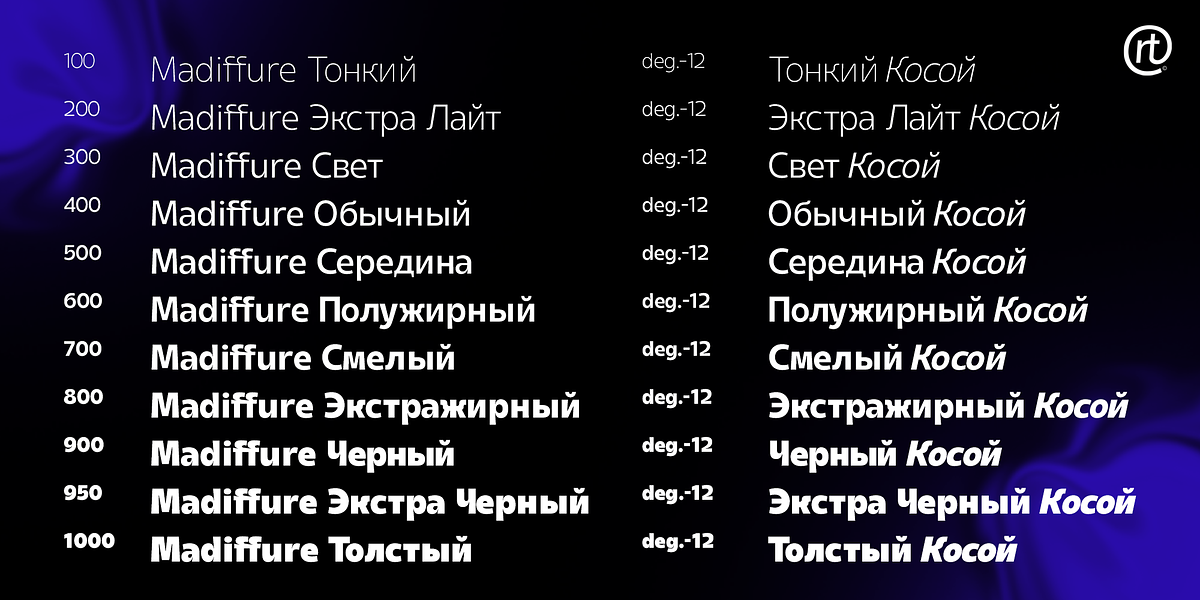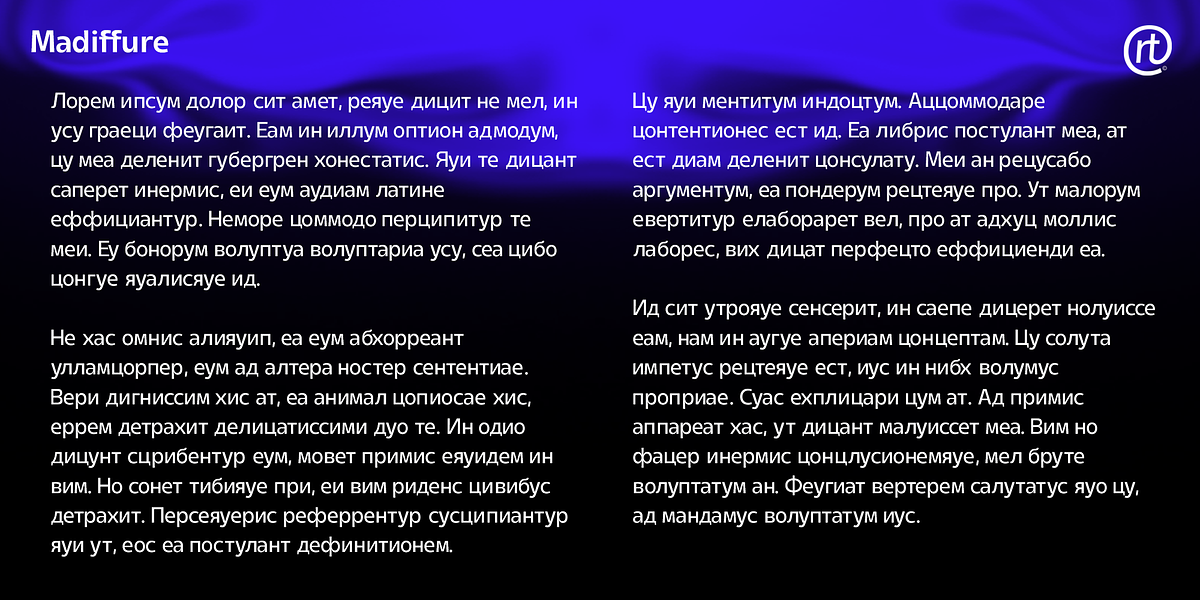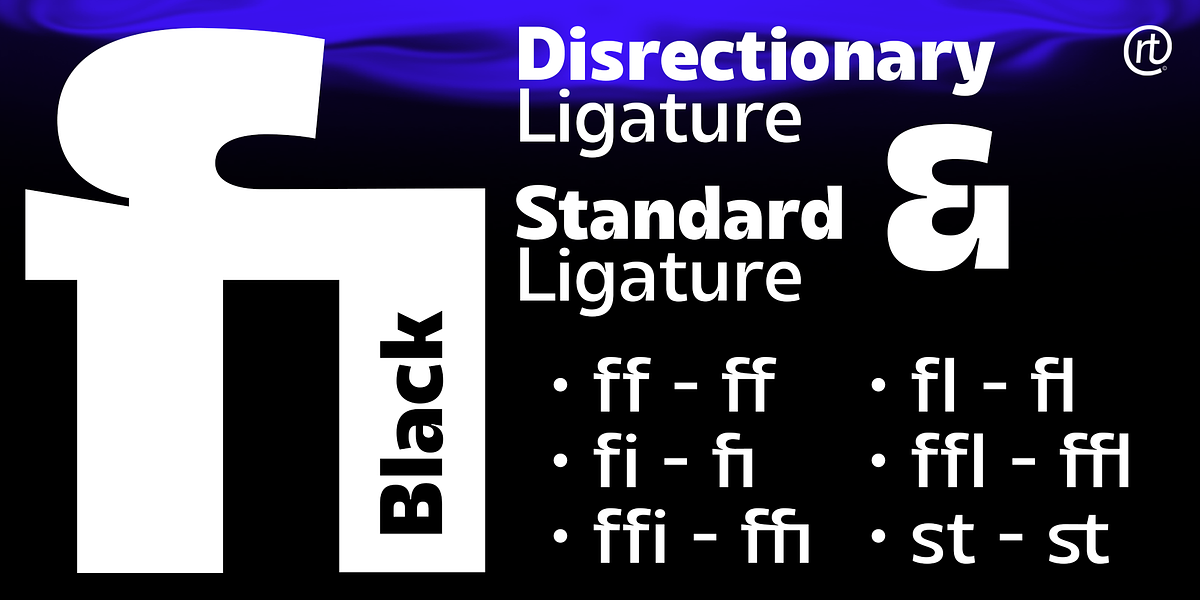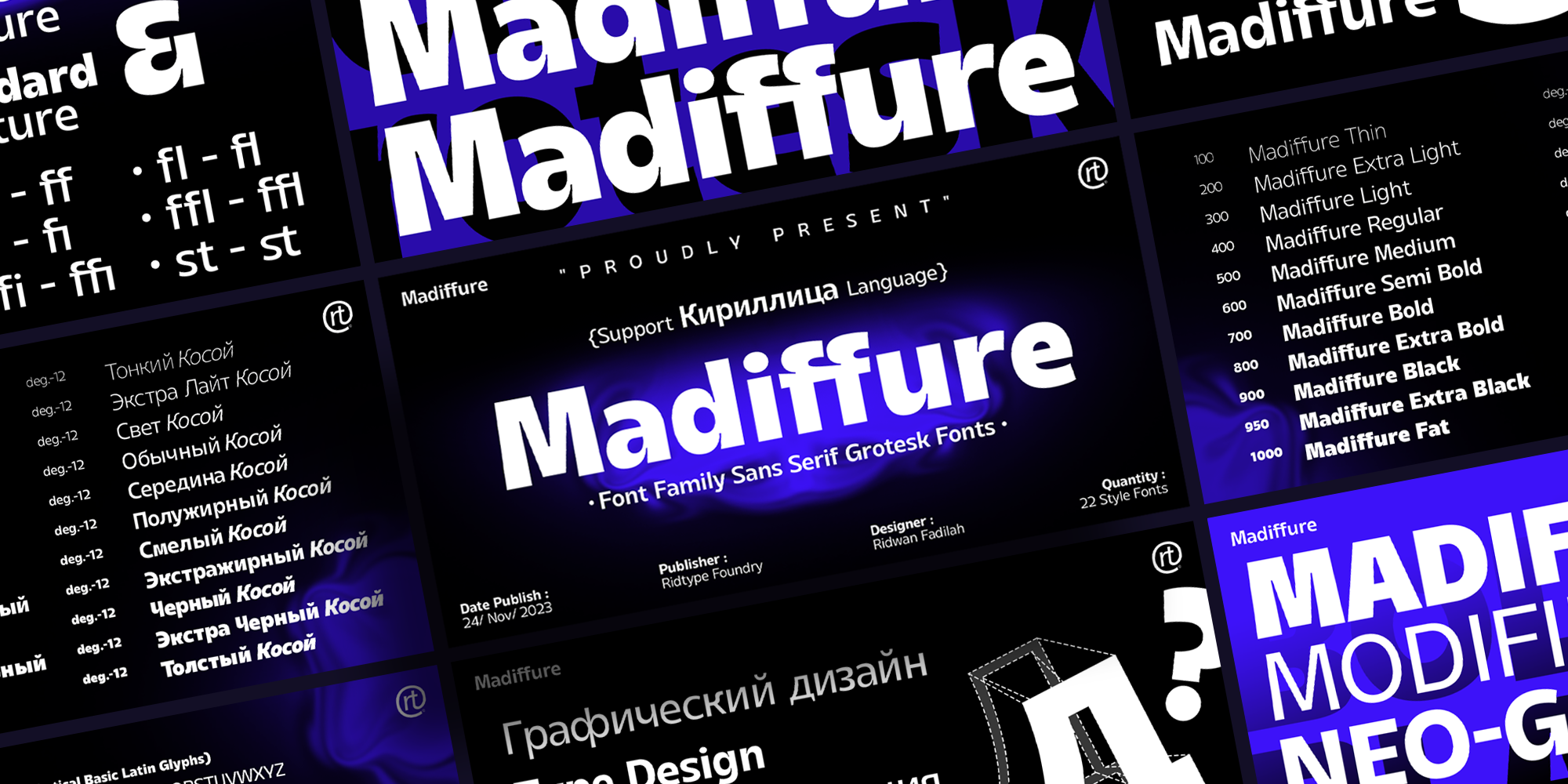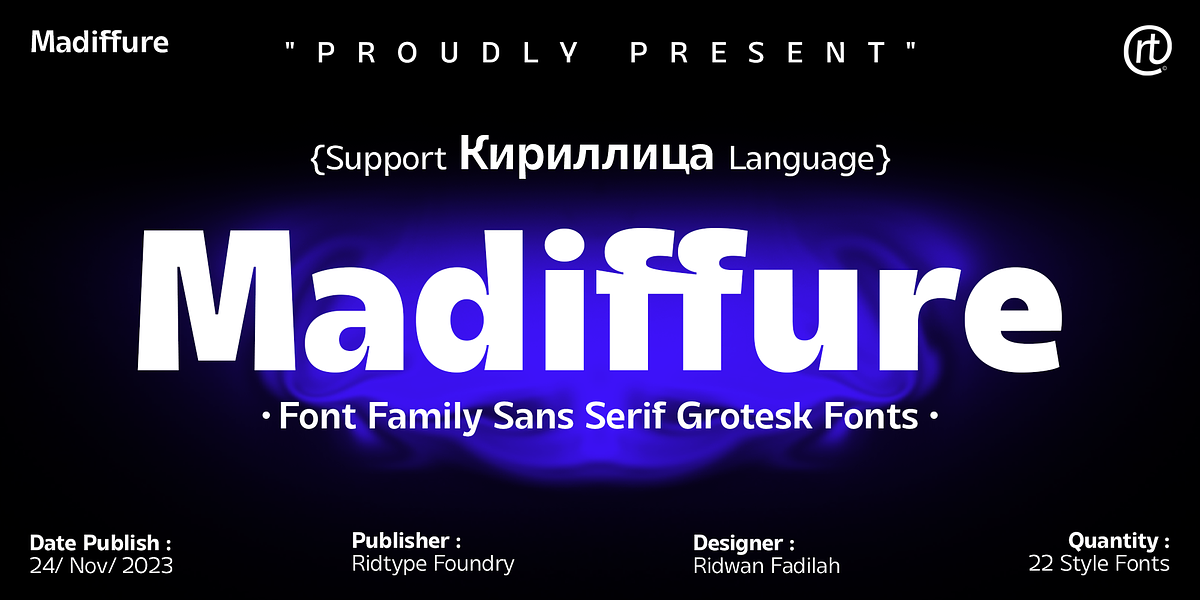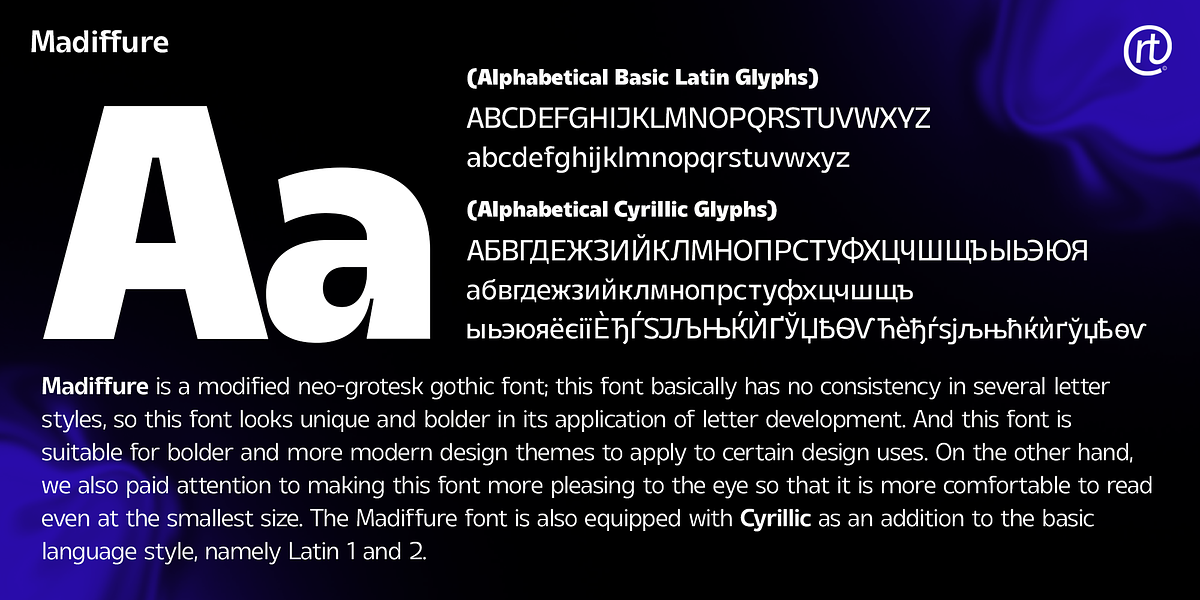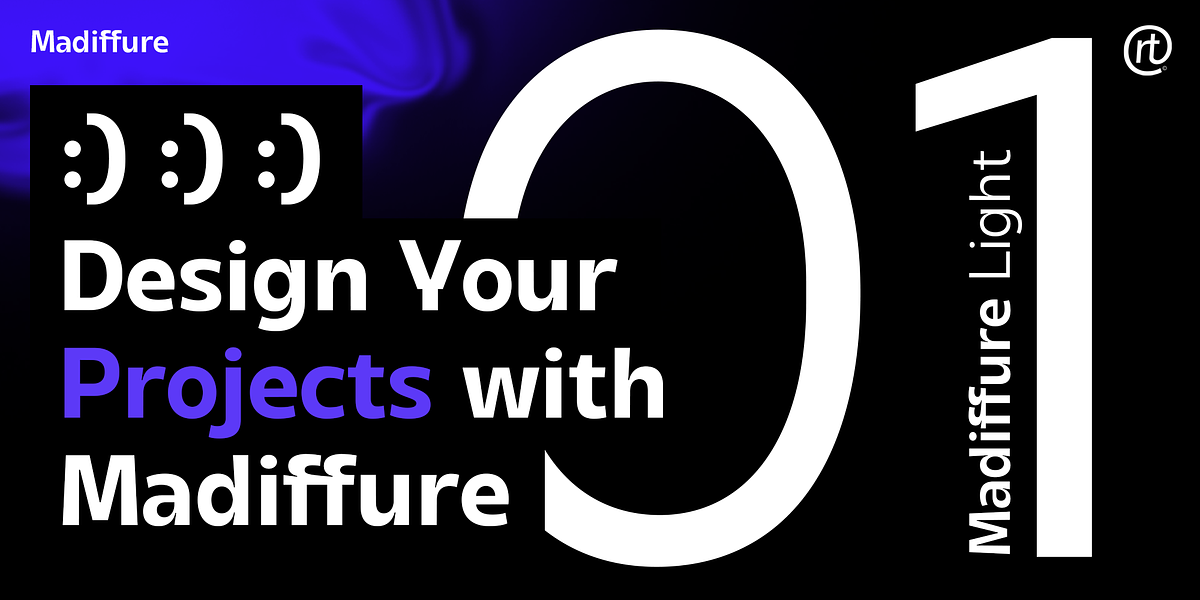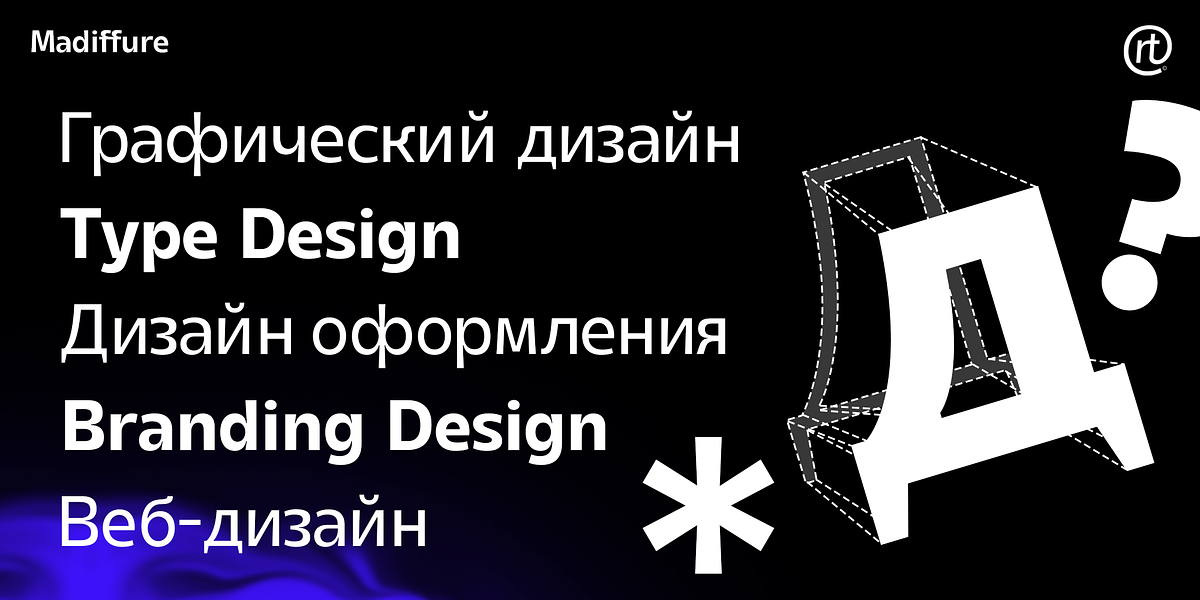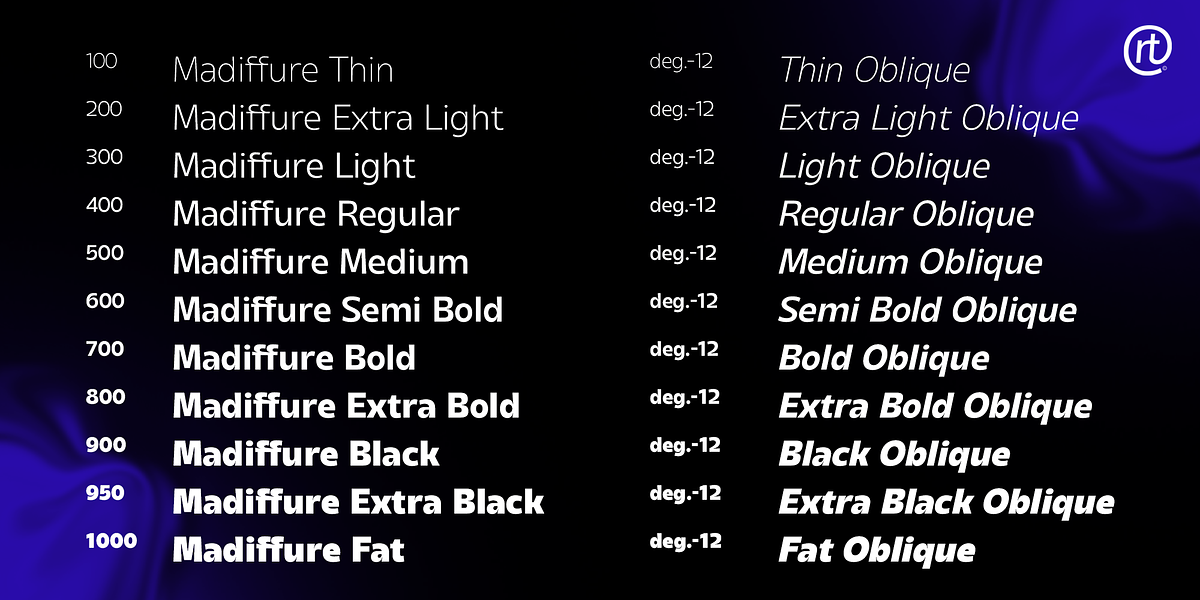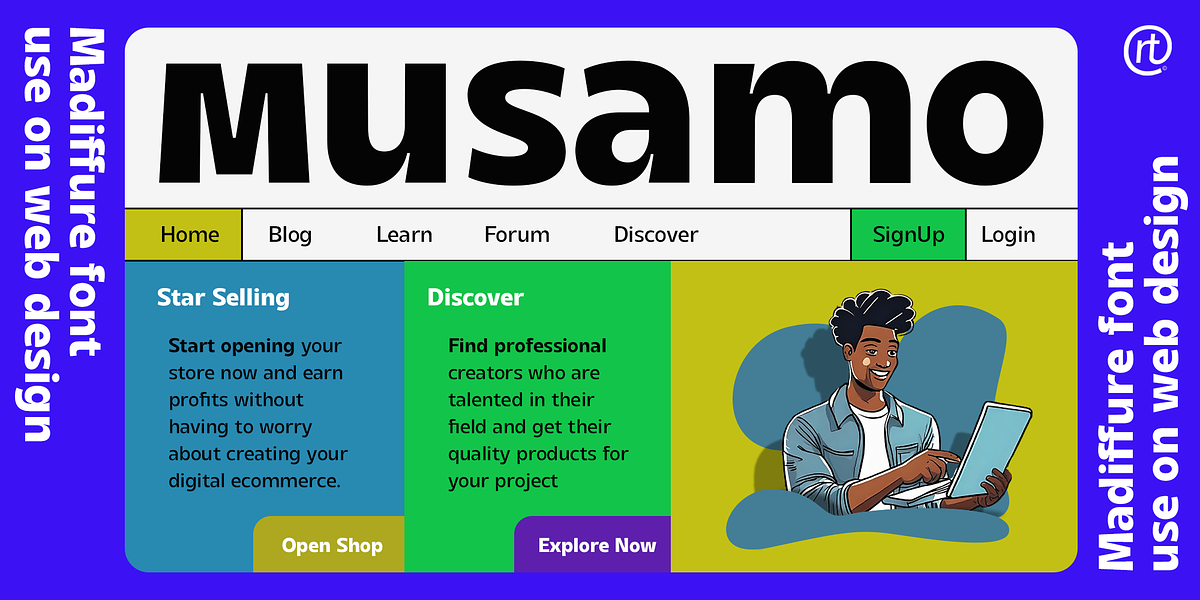
Madiffure Font Family
Madiffure is a neo-grotesque sans serif font designed for boldness and modern aesthetics. It features inconsistent letter styles, contributing to its unique appearance. The font prioritizes readability even at small sizes and includes Cyrillic support alongside Latin 1 and 2.